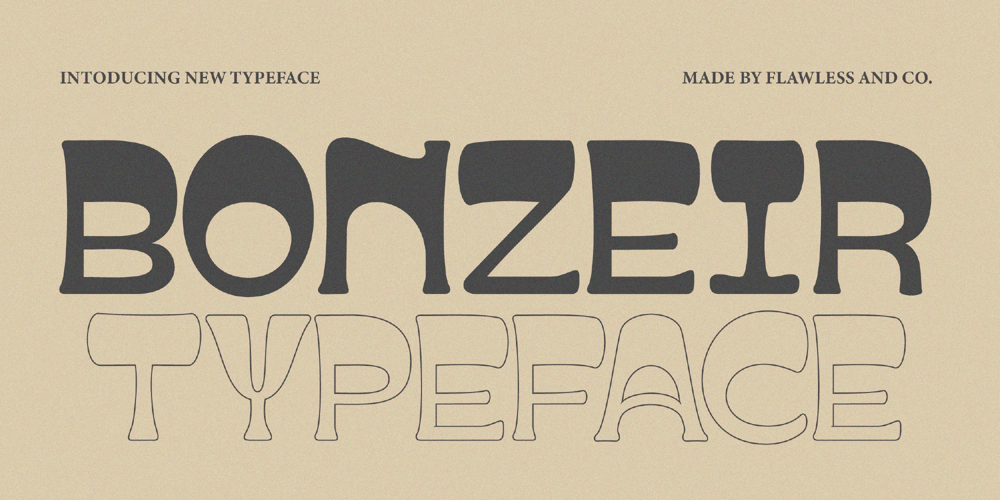
Bonzeir
Bonzeir font
Bonzeir Font Family was designed by Achmad Yani and published by Flawlessandco. Bonzeir contains 1 styles and family package options. Bonzeir is a Retrotype with various alternates and ligatures, an updated blend of bohemian style.An Original typeface that suitable for any graphic designs such as branding materials, t-shirt, print, business cards, logo, poster, t-shirt, photography, quotes .etcThis font support for some multilingual. Modern Boho Retro Font that contains uppercase A-Z and lowercase a-z, alternate character, numbers 0-9, and some punctuation.If you need help, just write me! Thanks so much for checking out my shop!